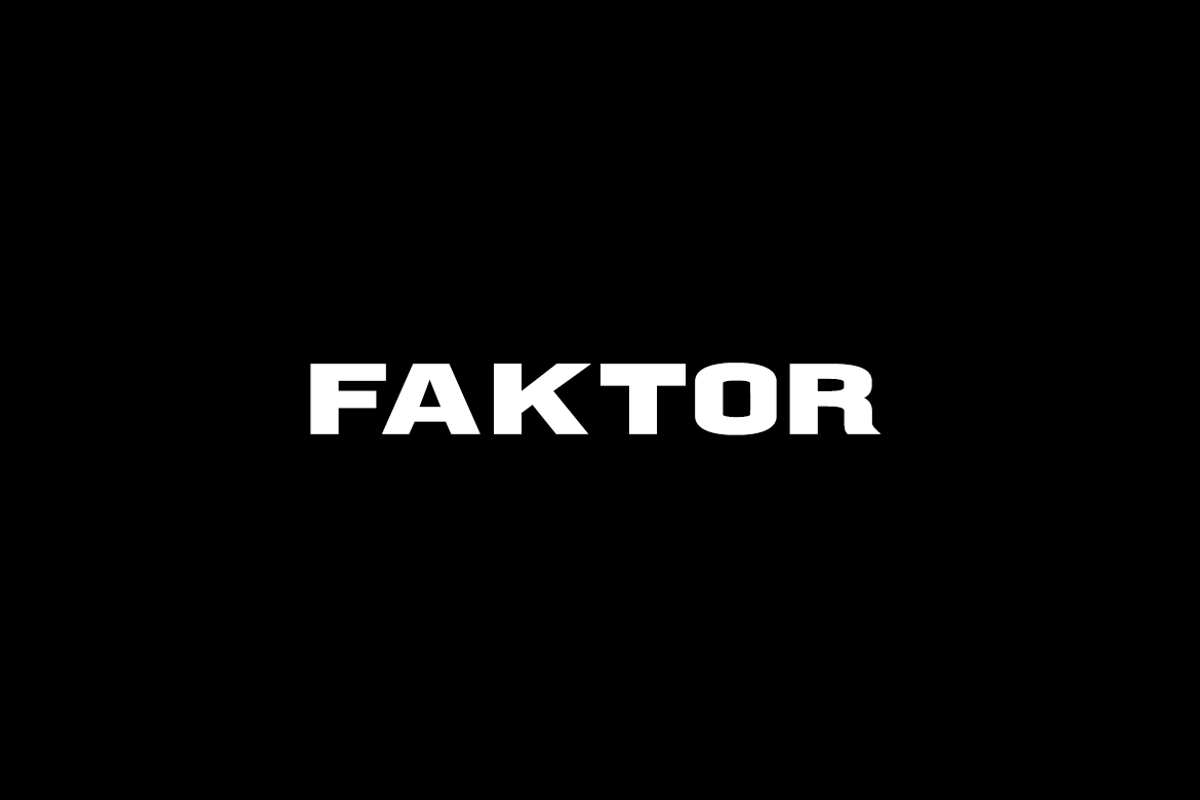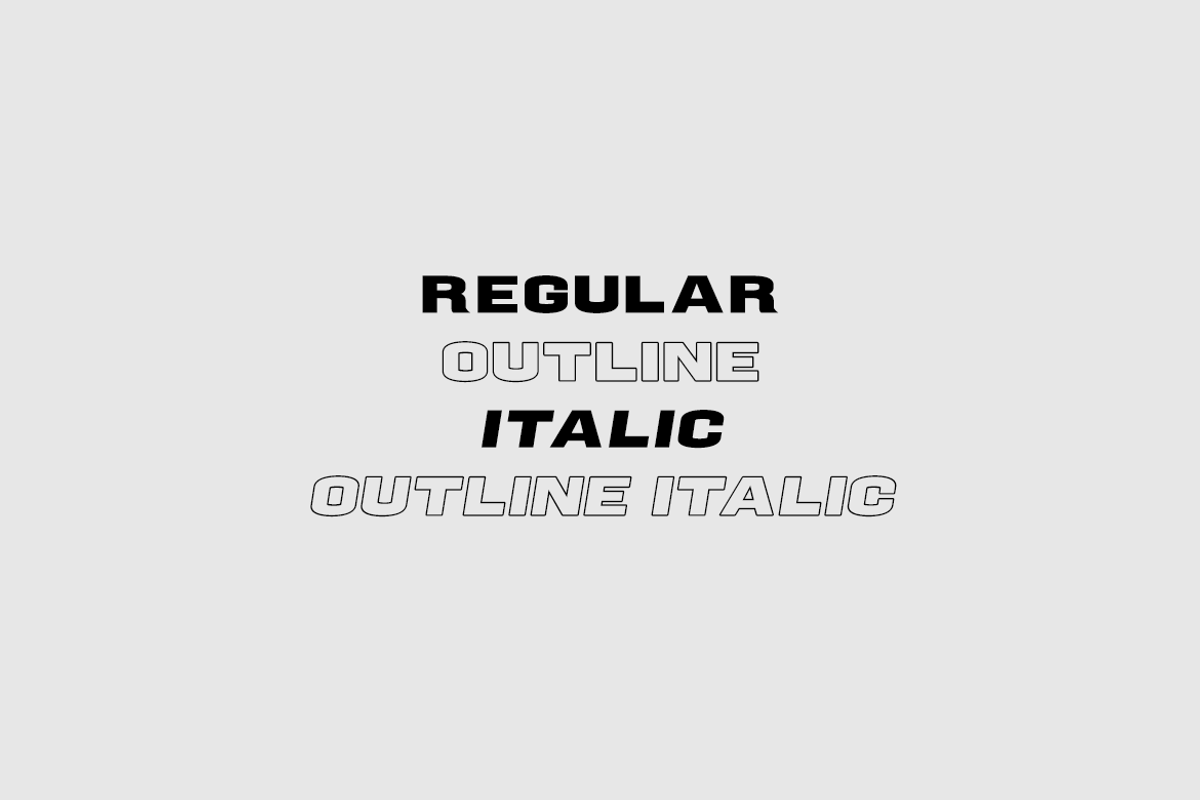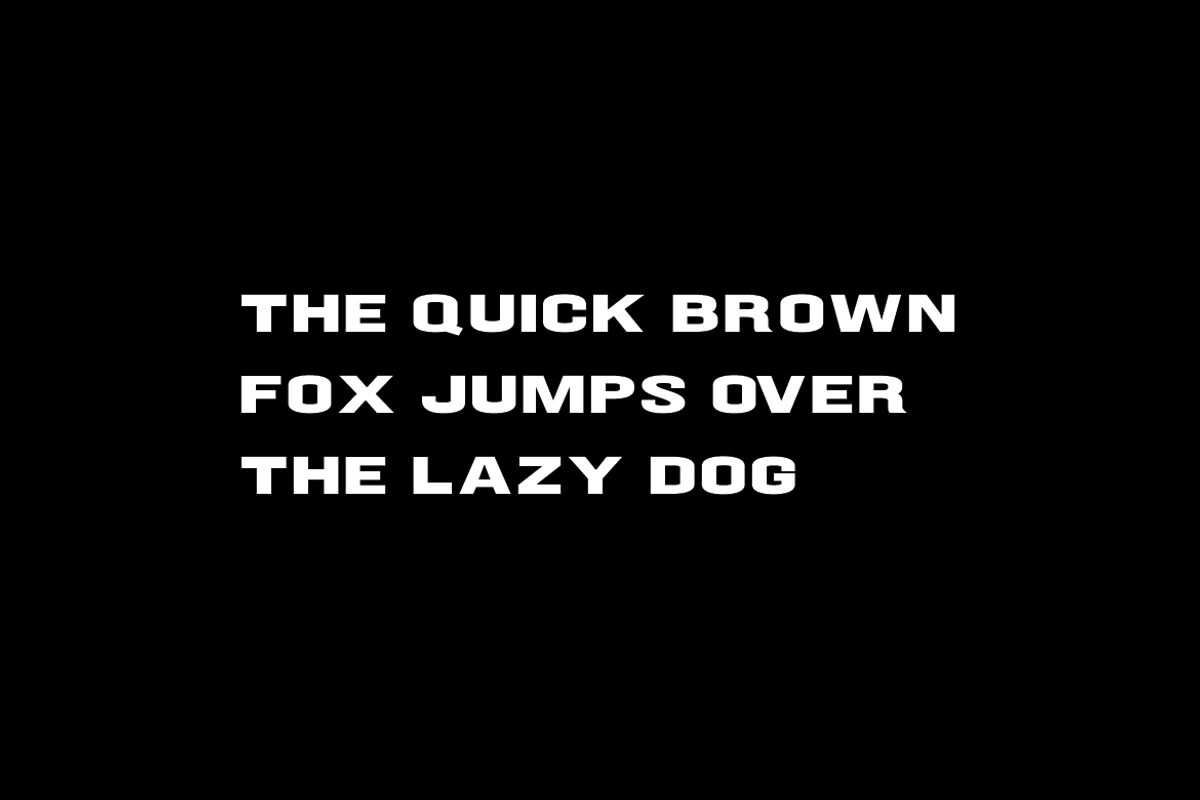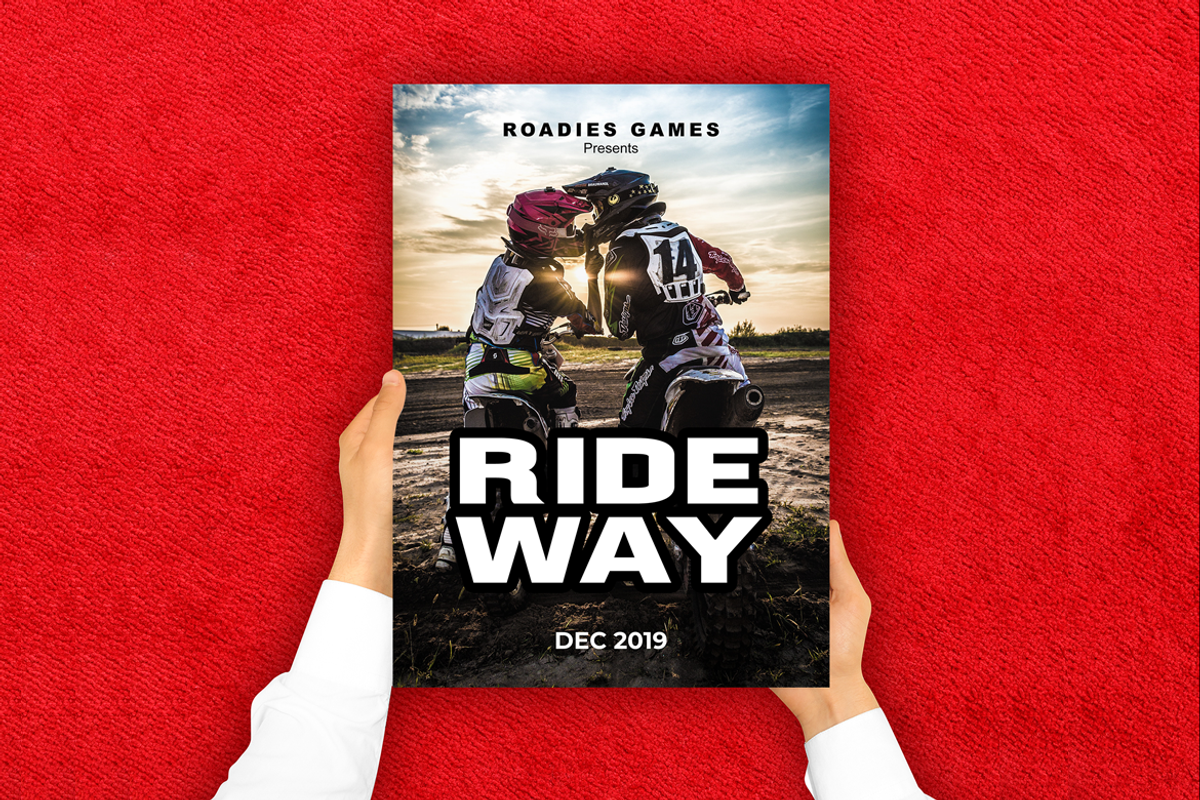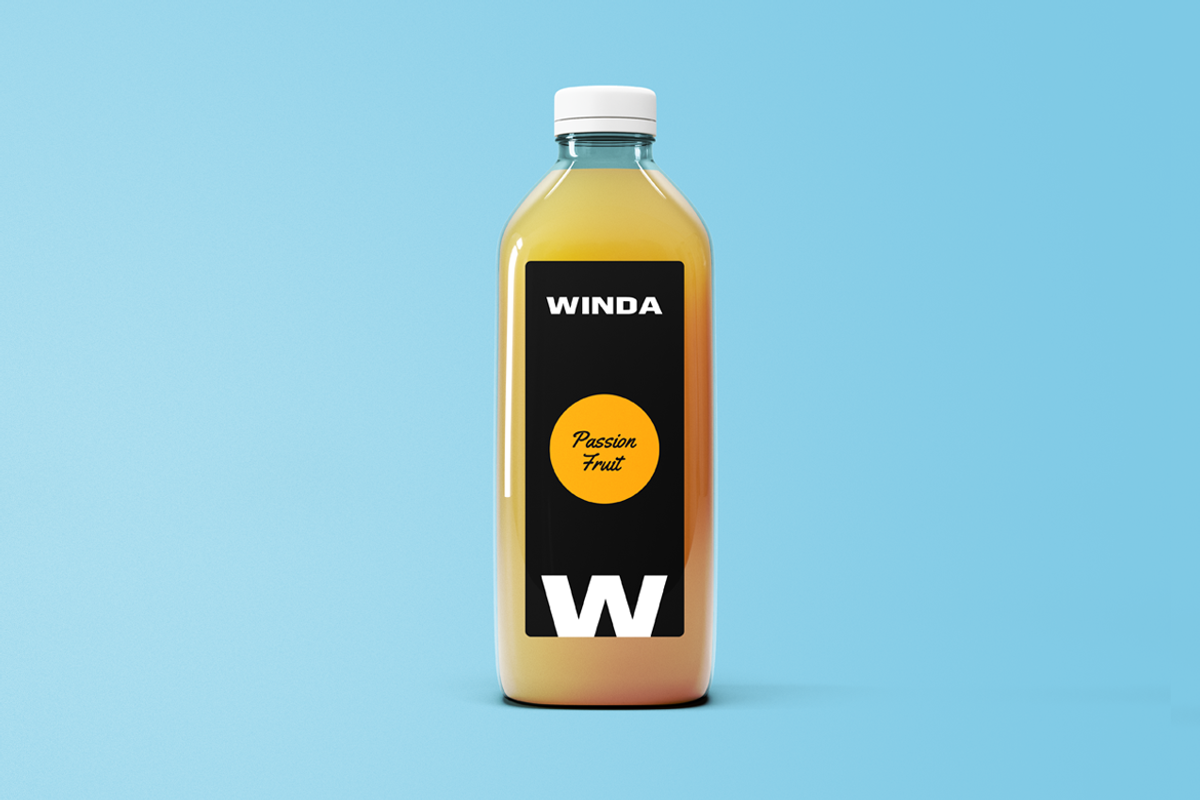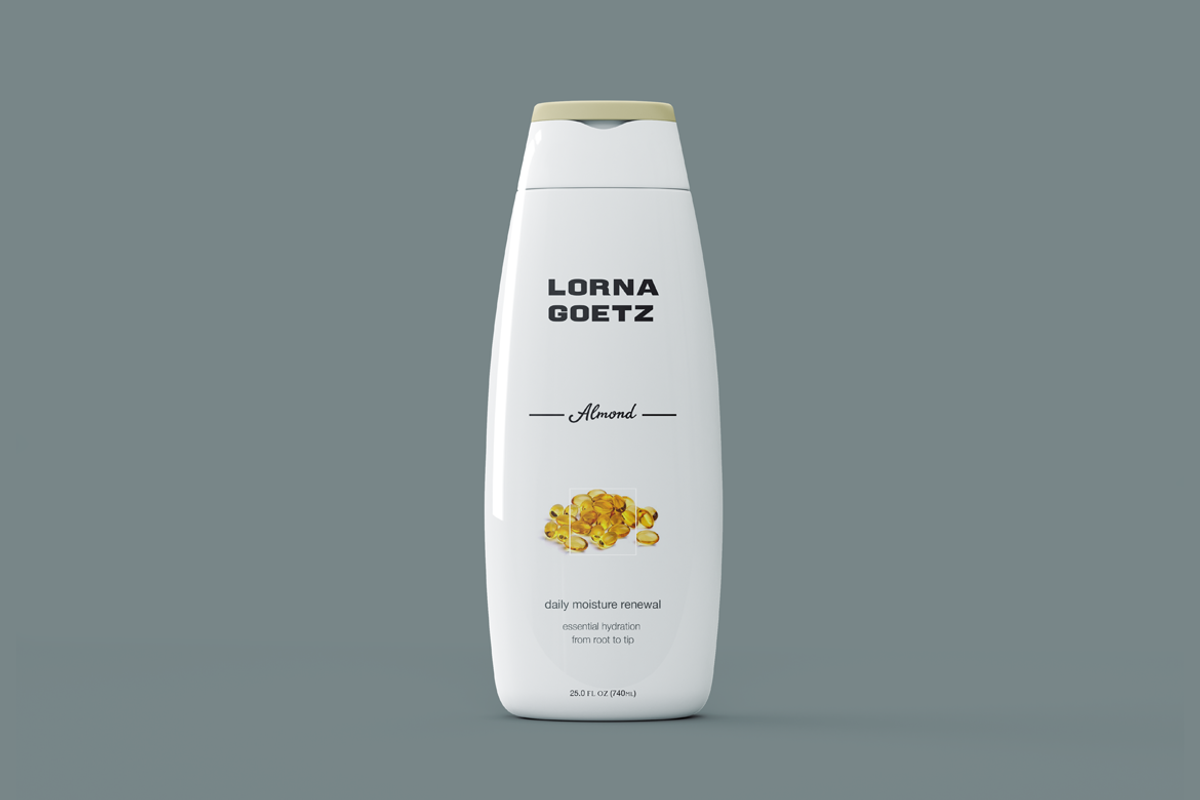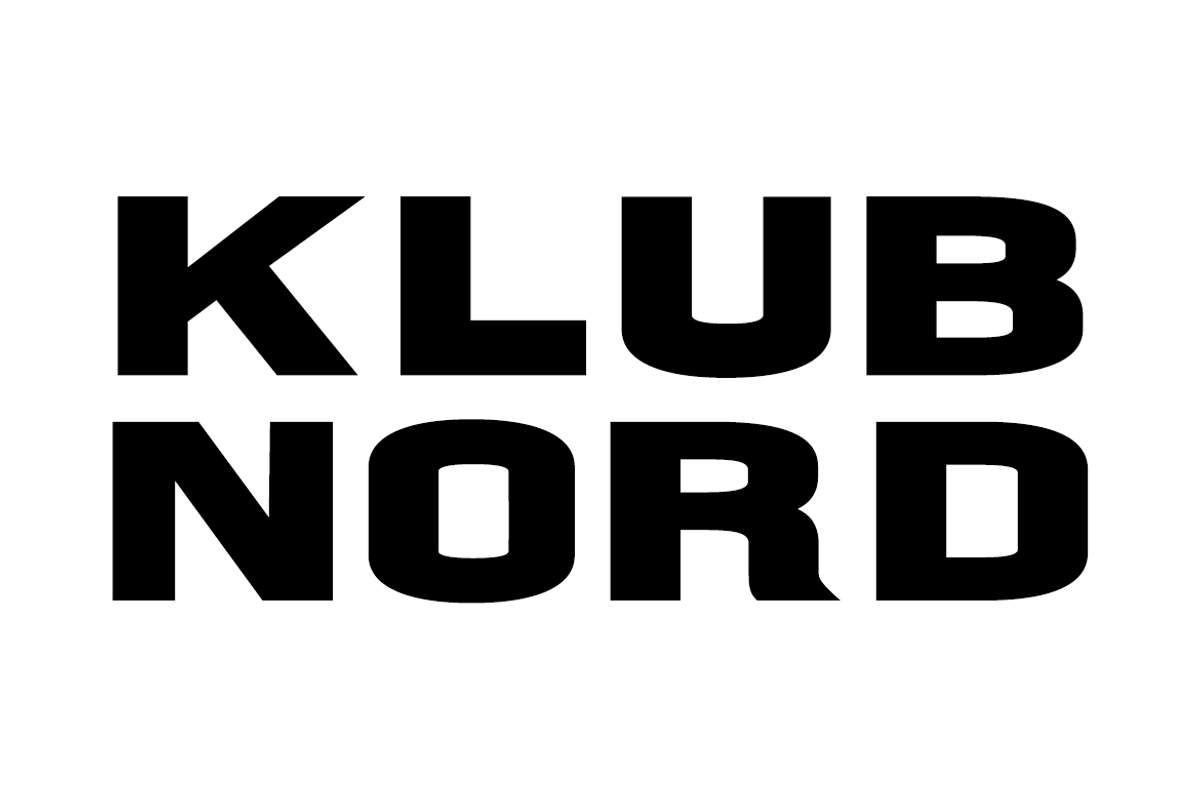
FAKTOR - Display / Headline Typeface
FAKTOR is a bold display / headline typeface dedicated for big text, movie posters, catchy heading, hero text, product marketing, branding, logotypes & display usage. This all-caps typeface is also perfect for creating outstanding logos, promotional content and marketing graphics that can really grab attention from your visitors. Please see the examples shown above to get an idea about the capability of this typeface.
FAKTOR comes with single weight but 4 styles (Regular, Italic, Outline, Outline Italic). The pack contains OTF, TTF as Desktop fonts and optional Web Fonts (all EOT, SVG, TTF, WOFF, WOFF2 formats included) as licensing options.